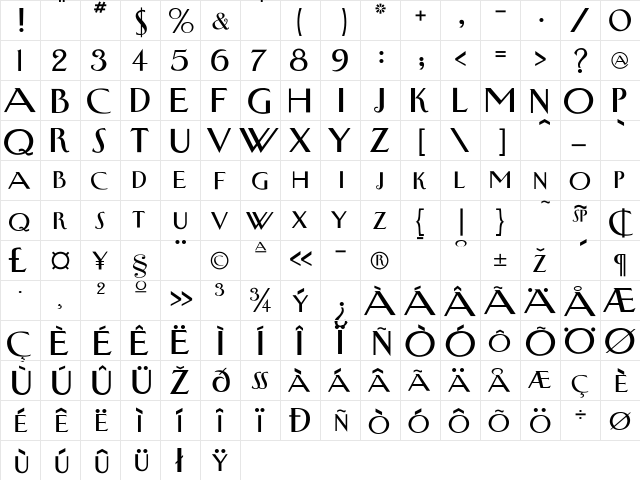
NewYorkerType Regular
Design Context for NewYorkerType Typeface
NewYorkerType takes a measured approach to typography — its balanced proportions and neutral character make it a reliable workhorse for both digital and print work.